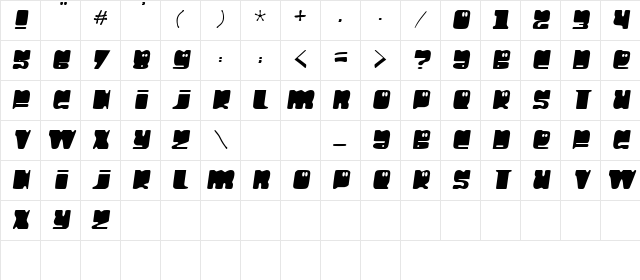
Hello Larry Regular Free Font
Hello Larry Regular
Design Context for Hello Larry
Hello Larry is a composed and adaptable typeface that performs quietly and consistently across a wide range of design contexts.